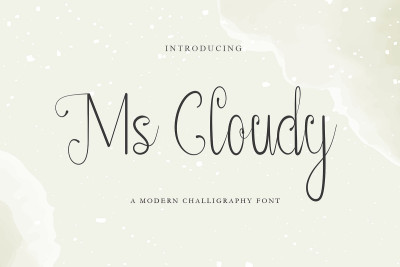
Ms Cloudy | Modern Calligraphy Script Font
Ms Cloudy | Modern Calligraphy Script brings a confident, polished presence to any design, from business materials to creative campaigns.
Common applications include business cards, posters, web headers, advertising materials, book covers, and corporate identity systems.